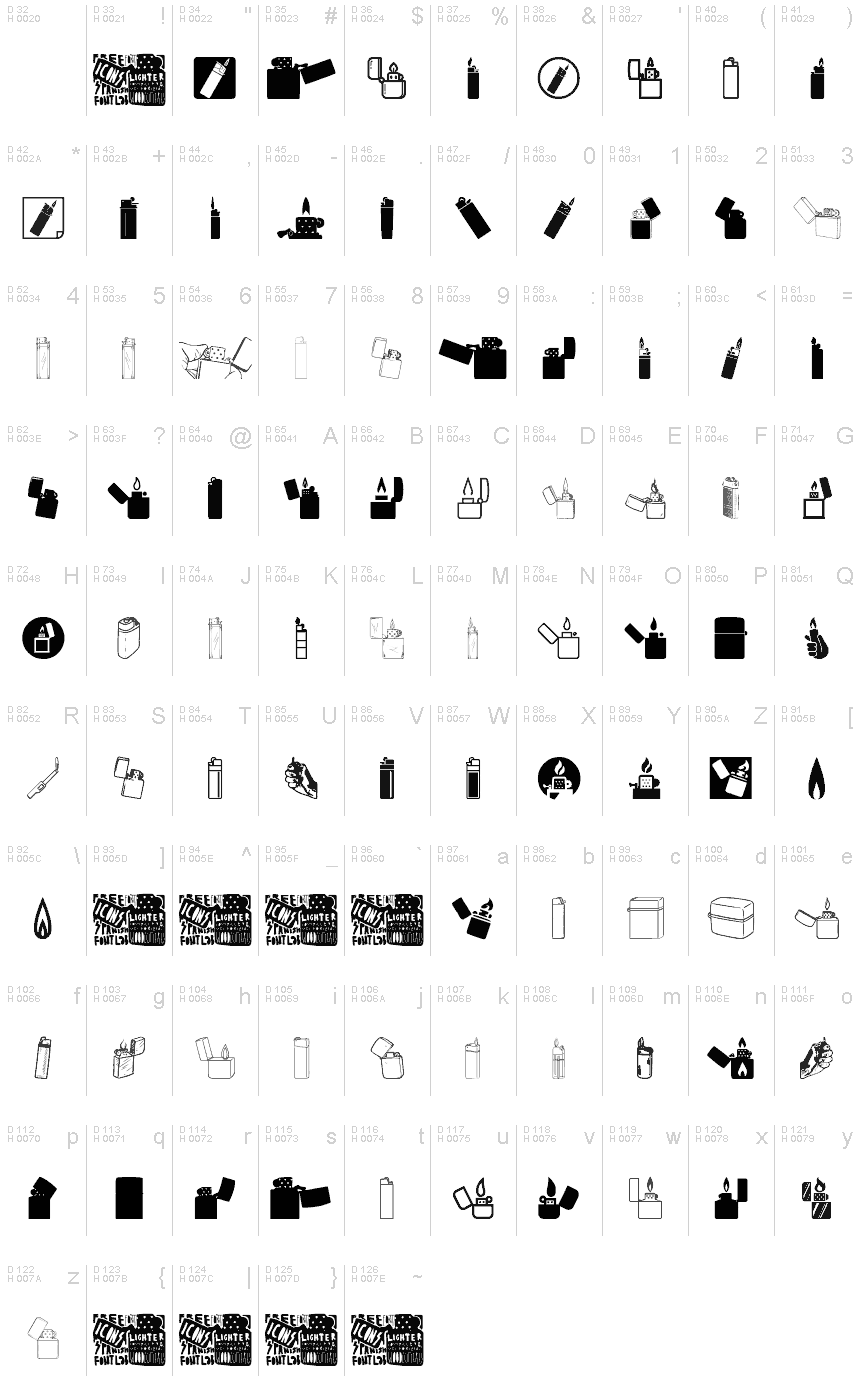
Lighter Icons
Lighter Icons, a captivating dingbat font crafted by the talented Woodcutter Manero, radiates a sense of effortless sophistication. This delightful collection of lighters and related imagery exudes a minimalist charm, seamlessly blending simplicity with a touch of whimsy. The clean, streamlined forms and playful silhouettes evoke a sense of casual elegance, making this font an inviting choice for designers seeking to infuse their projects with a refined, yet approachable, aesthetic.
Lighter Icons' versatility shines through, making it a versatile addition to a wide range of design applications. From branding and packaging to editorial layouts and digital interfaces, this font's distinctive icons can lend a distinctive flair, elevating the overall visual experience and capturing the attention of discerning audiences. Whether you're crafting a sleek, modern identity or curating a visually-driven editorial piece, Lighter Icons by Woodcutter Manero offers a captivating typographic solution that is sure to leave a lasting impression.